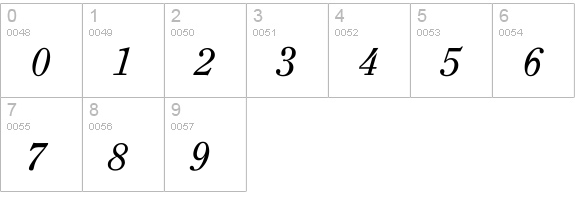
Oxy font is a sleek and modern typeface that exudes elegance and sophistication. With its clean lines and stylish design, Oxy is perfect for a wide range of design projects, from branding to editorial design. This versatile font is suitable for both headlines and body text, making it a great choice for any project that requires a touch of class. The best part? Oxy font is available for free download at FontsMarket.com. This means you can easily access this stunning font and use it in your projects without any cost. Whether you're a professional designer or just looking to spruce up your personal projects, Oxy font is a fantastic choice that won't break the bank. Download Oxy font today and elevate your designs with this beautiful typeface.